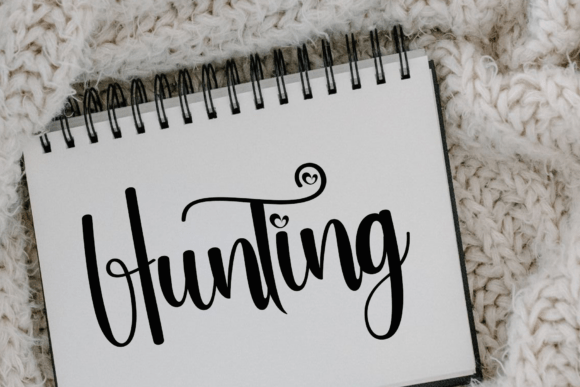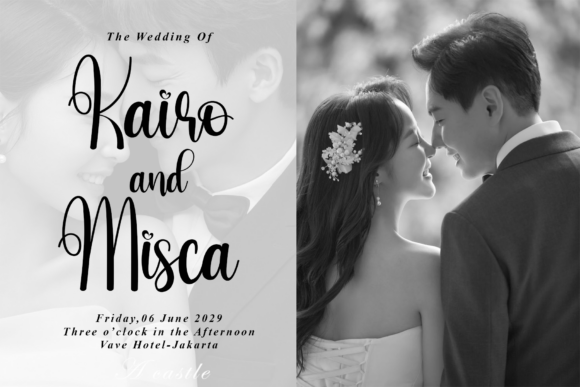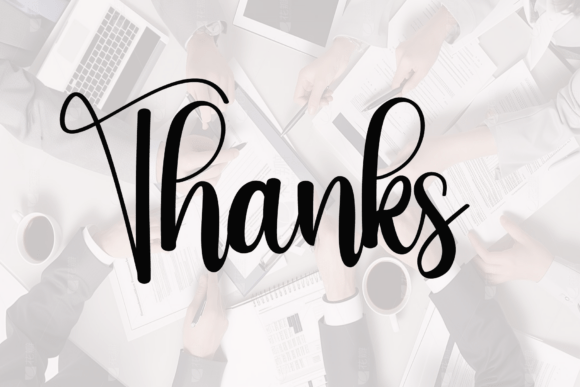
Introduction to Meeting Font
Have you ever found yourself scrolling through a design inspiration board, and suddenly, a font catches your eye? For many creatives, this is a moment of pure joy – the spark that sets their next project ablaze. For me, that moment happened when I stumbled upon the Meeting Font. Its elegant, handwritten script design left me breathless, and I knew I had to share it with the world.
The Meeting Font is more than just a beautiful design element; it’s a valuable resource for designers looking to add a touch of sophistication to their creative projects. Whether you’re working on a high-profile business branding project or a romantic wedding invitation, this font is sure to impress. With its flowing lines, heart-shaped swashes, and smooth curves, the Meeting Font is the perfect combination of professionalism and romance.
Key Features of Meeting Font
- High-quality, vector-based font design ideal for creative projects and presentations.
- Perfect for use in business and corporate settings, including meeting notes, reports, and presentations.
- Includes a wide range of characters, including Latin and Cyrillic scripts, making it suitable for international use.
- Designed with a clean and modern aesthetic, making it an excellent choice for any creative project or design resource.
Honest Review: Meeting Font
I recently stumbled upon Meeting Font while searching for a free download to enhance my design project. As a designer, I appreciate discovering new design resources that can elevate my creative work. Meeting Font has a modern and professional look that can be easily applied to various projects.
What works well with Meeting Font is its clean and simple design, making it a great choice for presentations and reports. The font is available for free download, which is a huge plus for designers on a budget. I also appreciate that it comes with a transparent background, allowing for seamless integration with other design elements.
- ✨ High-quality design that’s perfect for professional projects
Overall, Meeting Font is a solid design resource that can be a great addition to your design arsenal. While it may have some limitations, its clean and professional design makes it a worthwhile download for designers working on presentations, reports, and other creative projects.
Meeting Font
Meeting Font is a versatile design resource ideal for creative projects requiring a professional touch. This free download is perfect for presentations, reports, and other visual materials where clarity and readability are essential.
Getting the Most Out of Meeting Font
To get the most out of Meeting Font, consider the following tips:
- Use Meeting Font in conjunction with a transparent background to create a clean and modern design.
- Experiment with different font sizes and styles to achieve the desired visual impact.
Meeting Font is commonly used in:
- Business presentations and reports.